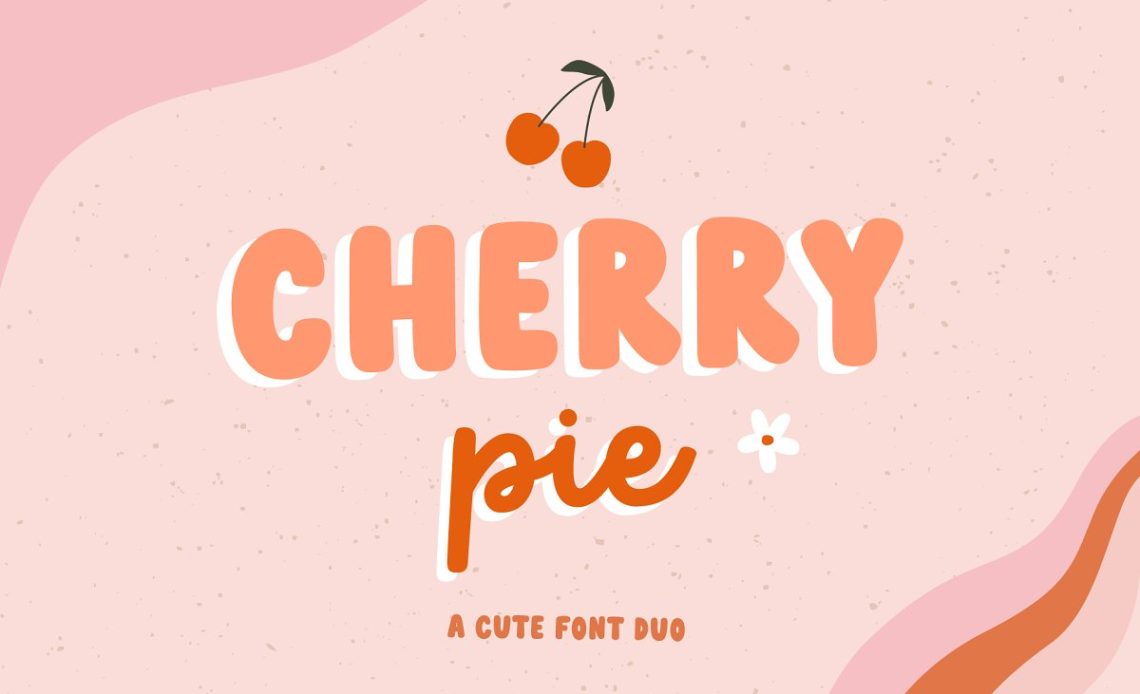
Looking for a fun and playful typeface to elevate your designs? Look no further than Cherry Pie, the latest font duo from Angelina Kovel. This sans serif font family is perfect for adding a touch of whimsy to any project, from greeting cards and product packaging to book covers and album art.
Cherry Pie features a bold, hand-lettered style that's sure to make a statement. Whether you're creating a flyer, designing a logo, or crafting a printed quote, this typeface is the perfect choice. Its versatility makes it suitable for a wide range of applications, so you can let your creativity run wild.
The Cherry Pie font family includes two fonts: Cherry Pie.otf and Cherry Pie-Script.otf. Both fonts are packed with personality and are sure to catch the eye of anyone who sees them. And because they're both included in the same family, you can mix and match them to create unique and memorable designs.